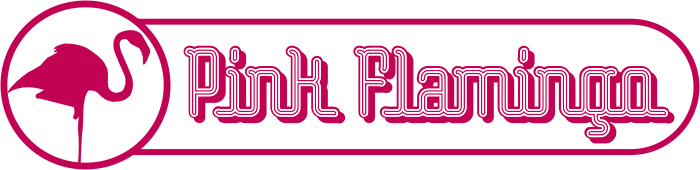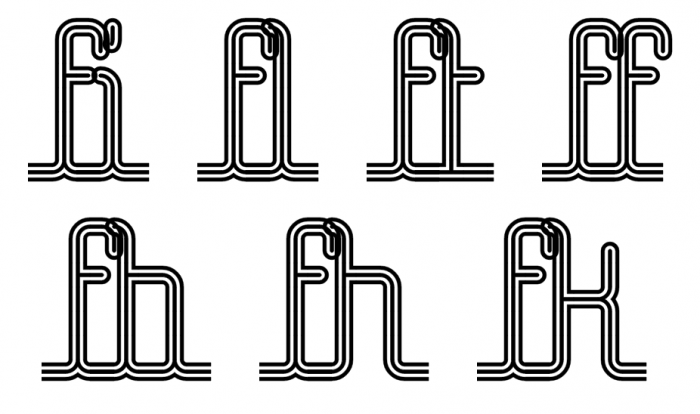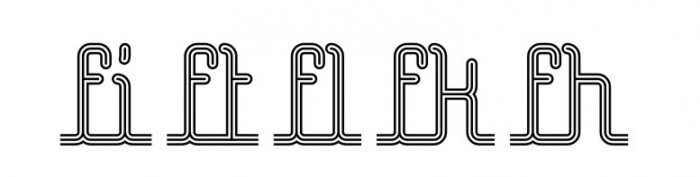
Awesome. I like it. There's a lot you can do with those connecting blocks. This is a fine example. But wow, a connecting letter script style? Bravo.
Great solutions for g, j and y, I love them. The f overlaps other glyphs (b, f, h, i, k, l, t).
Excellent shadowed sample. These connecting bricks are definitely fun to work with.